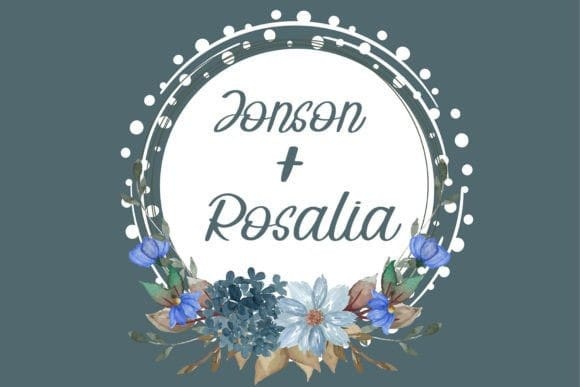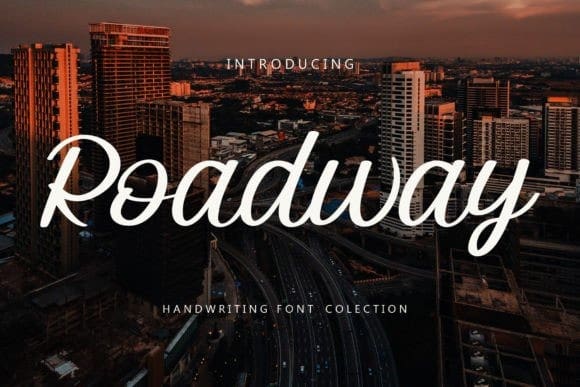
Roadway Script Font
Roadway Script Font is a delicate handwritten font carefully crafted for a cool and unique design. This font can be used to write letters, invitations, food products, titles and more.